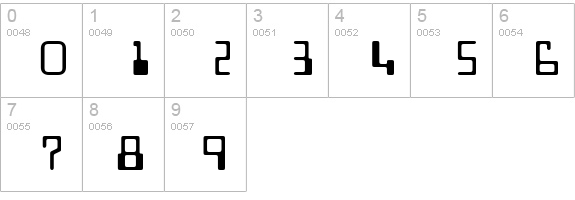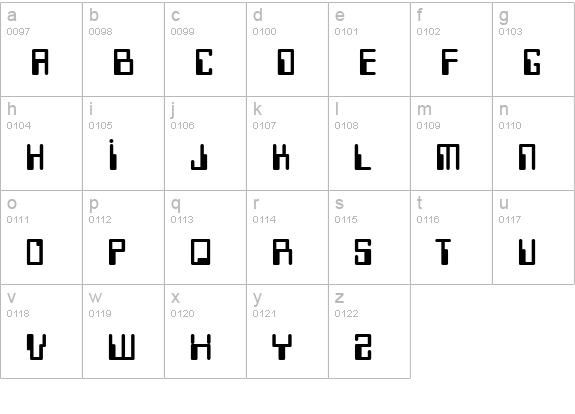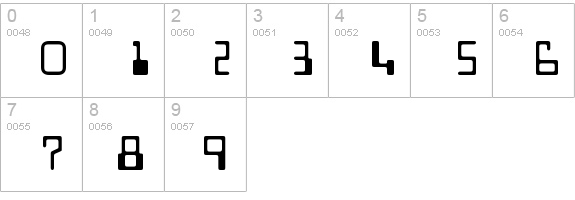
TR Keypunch Font Details
TR Keypunch font is a versatile and professional typeface that combines classic elements with a modern twist. Its clean lines and bold strokes make it perfect for a wide range of design projects, from logos to posters to websites. With its unique character and timeless appeal, TR Keypunch font adds a touch of sophistication to any text. What's even better is that TR Keypunch font is available for free download at FontsMarket.com. This means you can easily access this high-quality font without any cost, making it a valuable addition to your font collection. Don't miss out on the opportunity to enhance your designs with the elegant and stylish TR Keypunch font today!